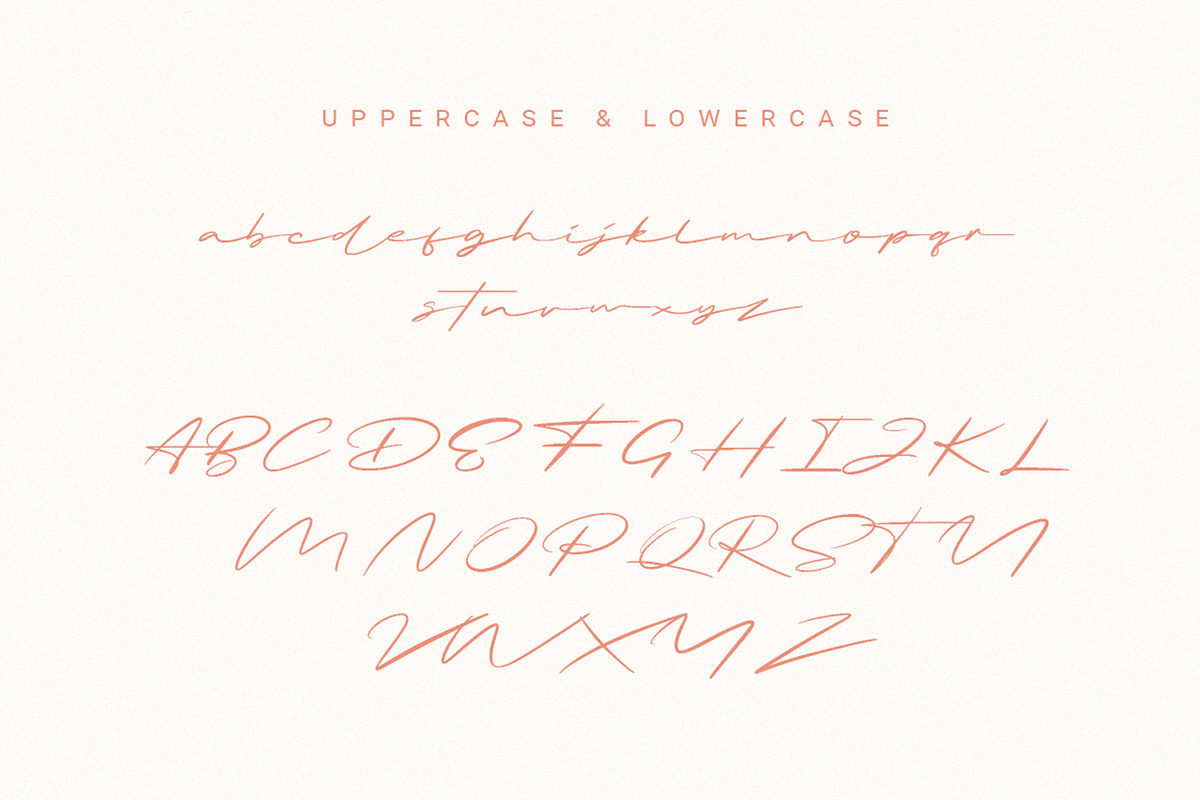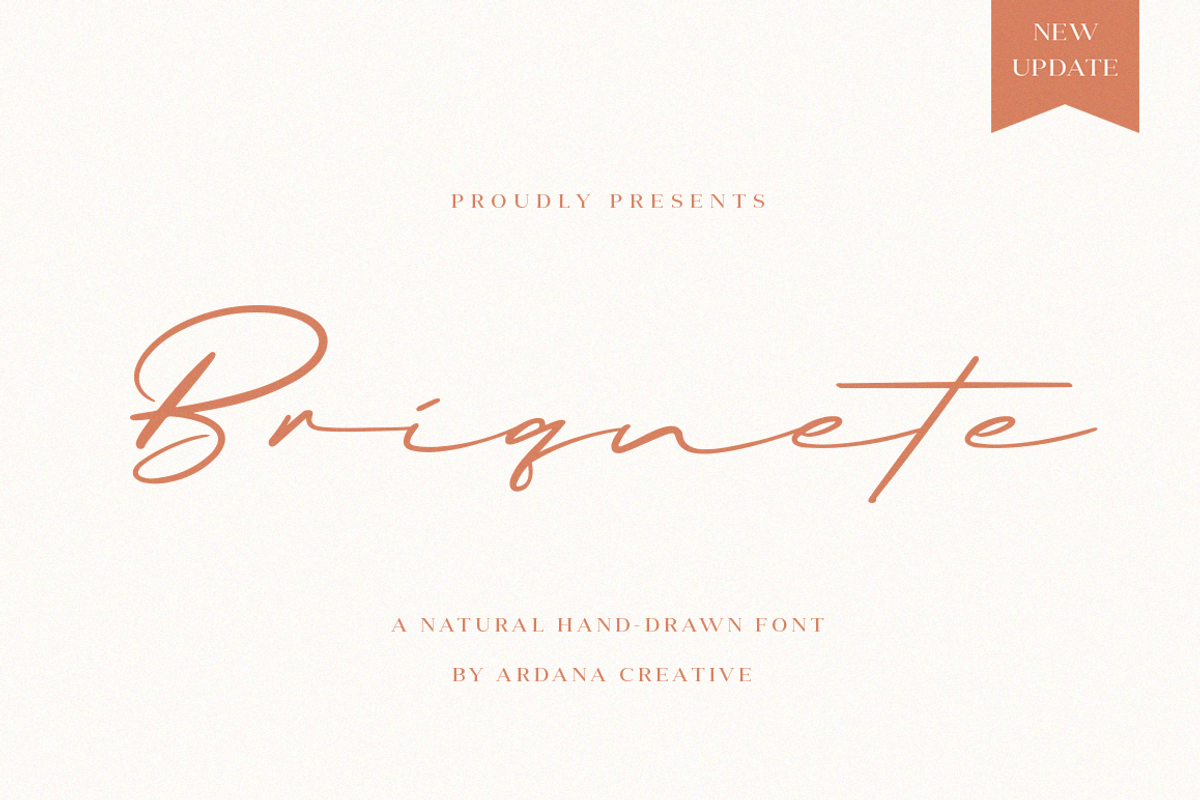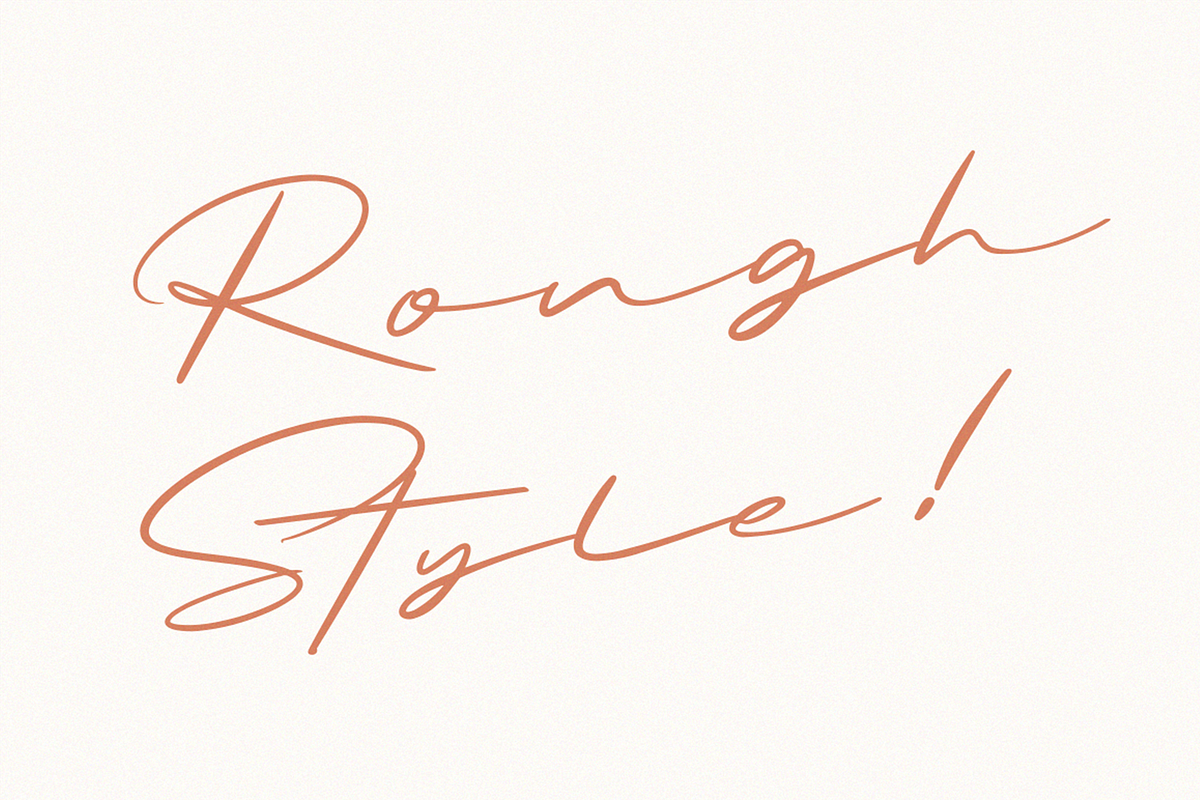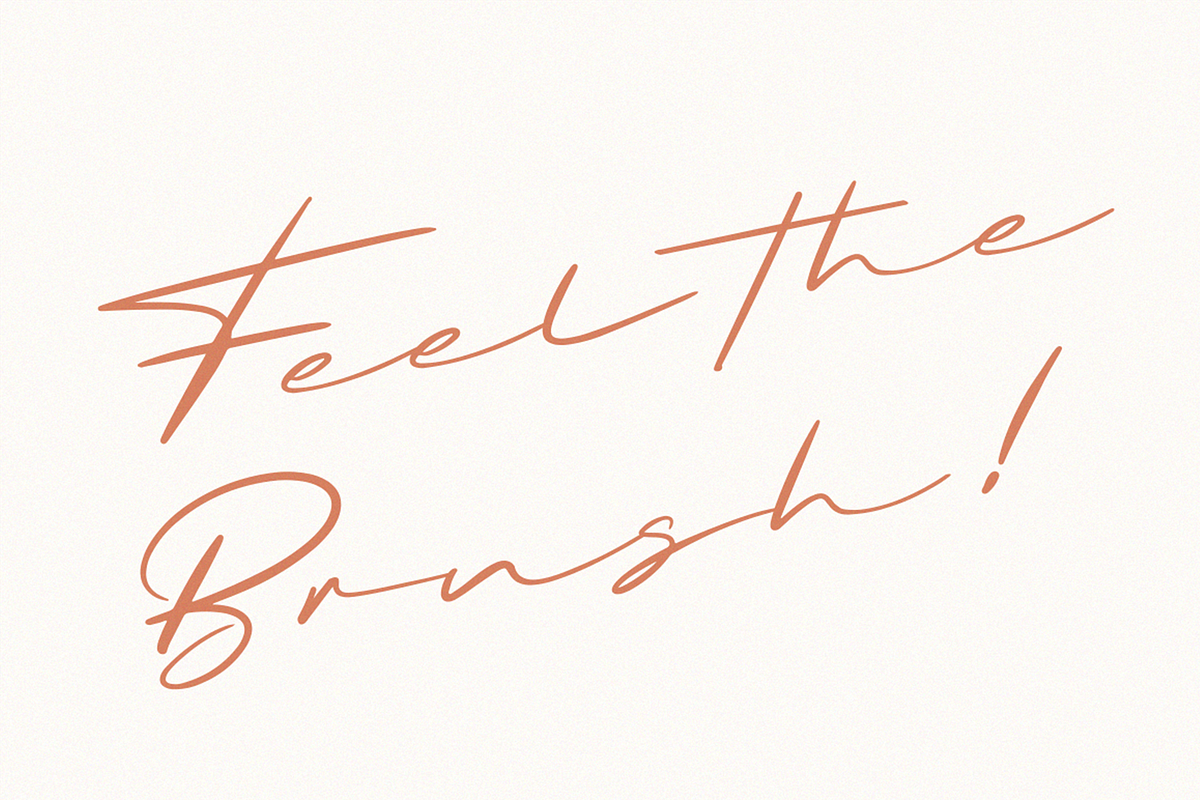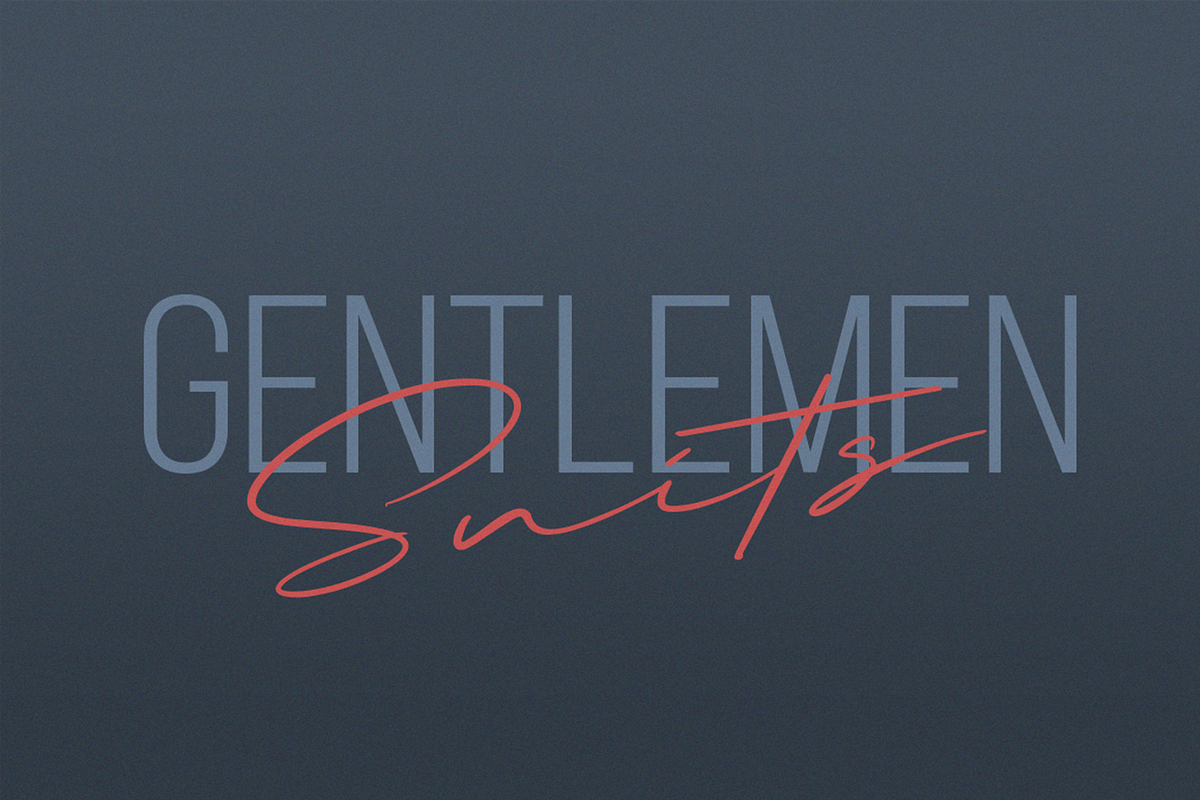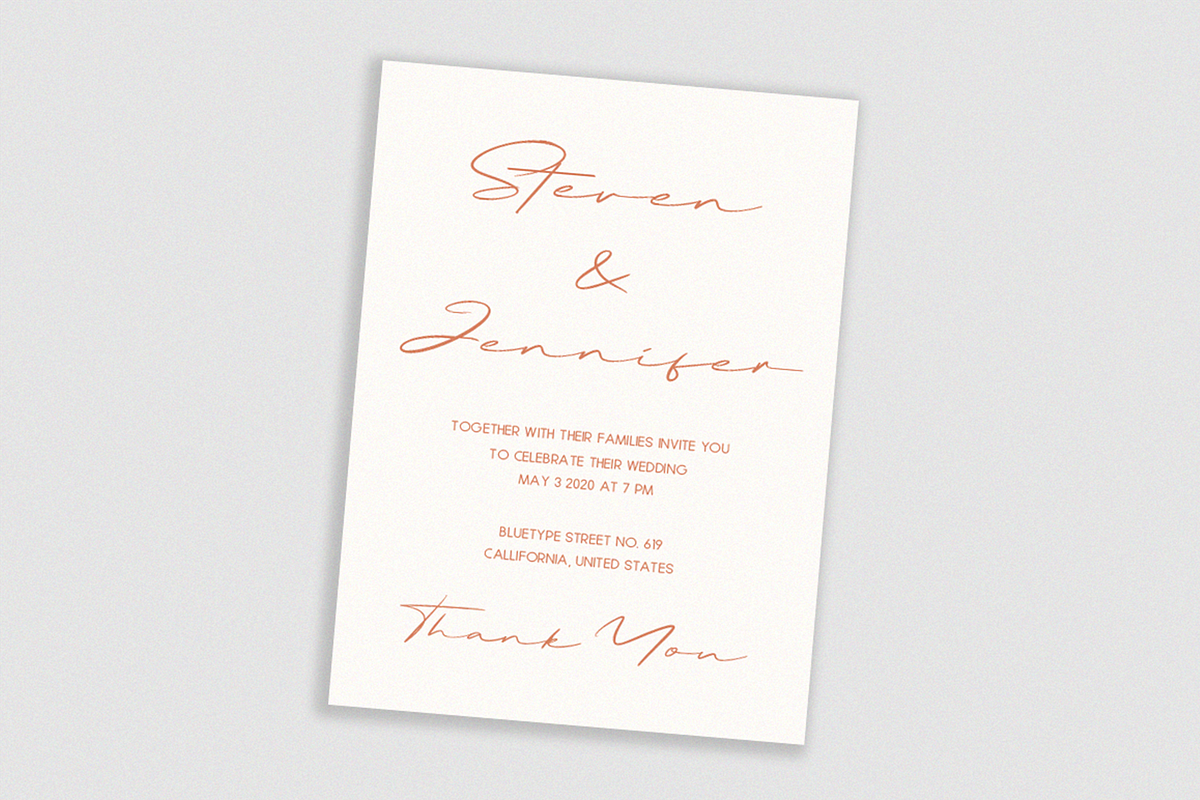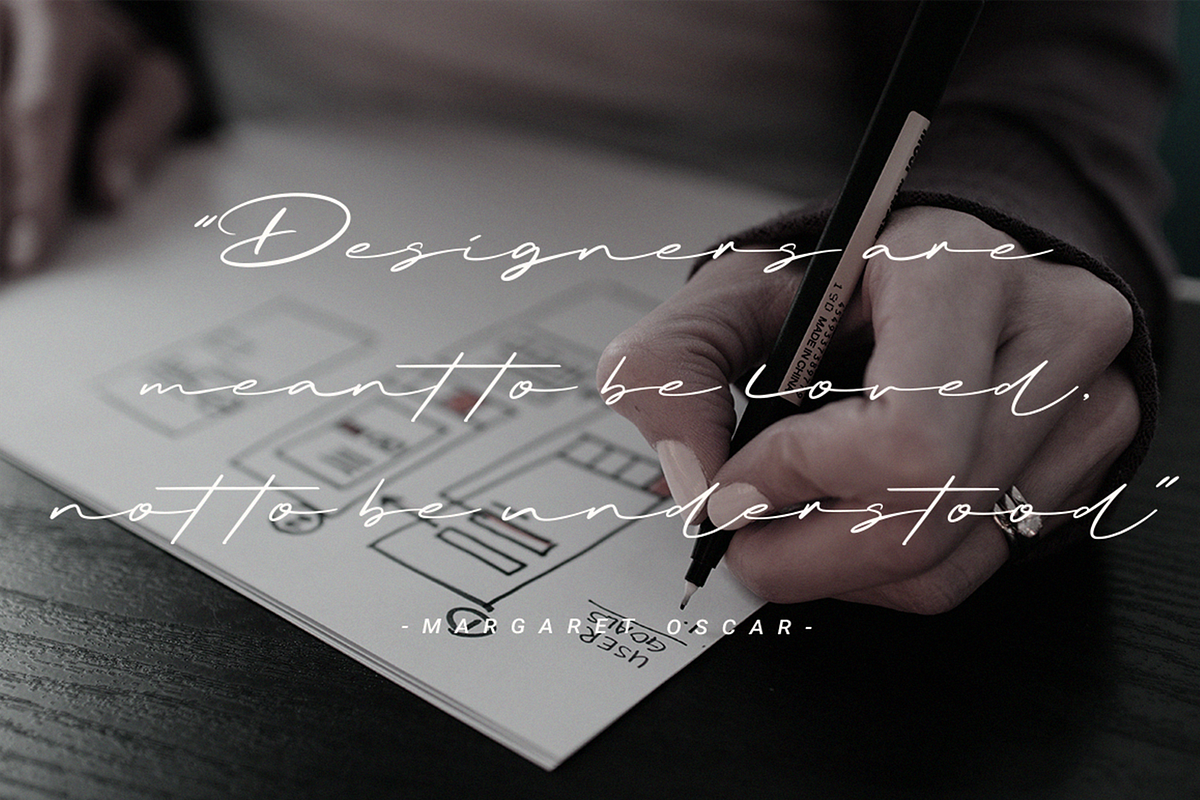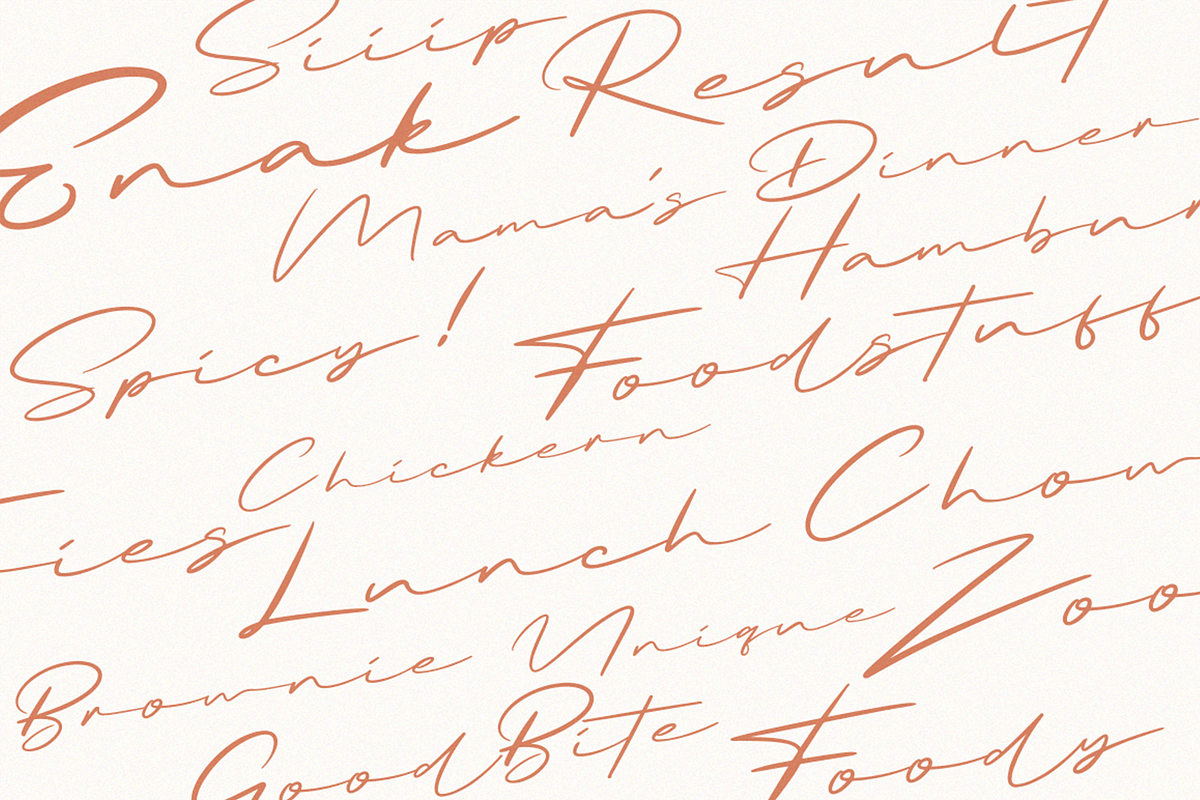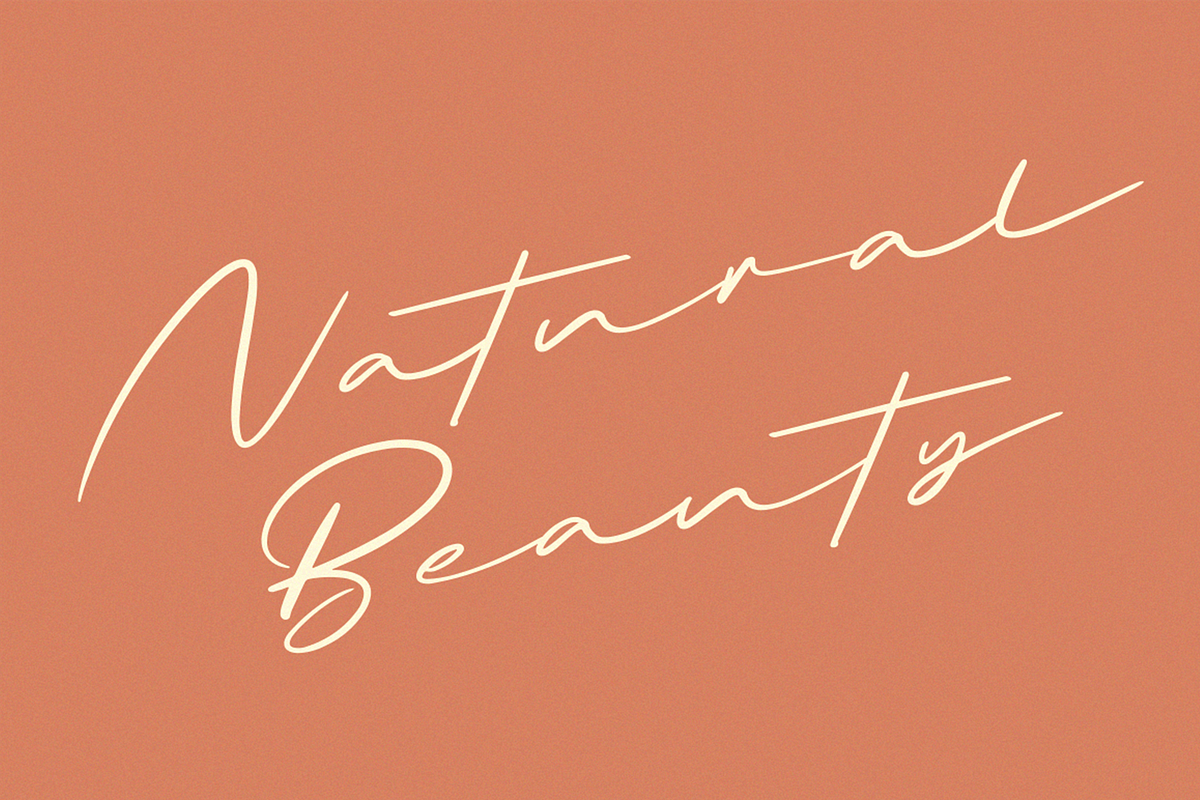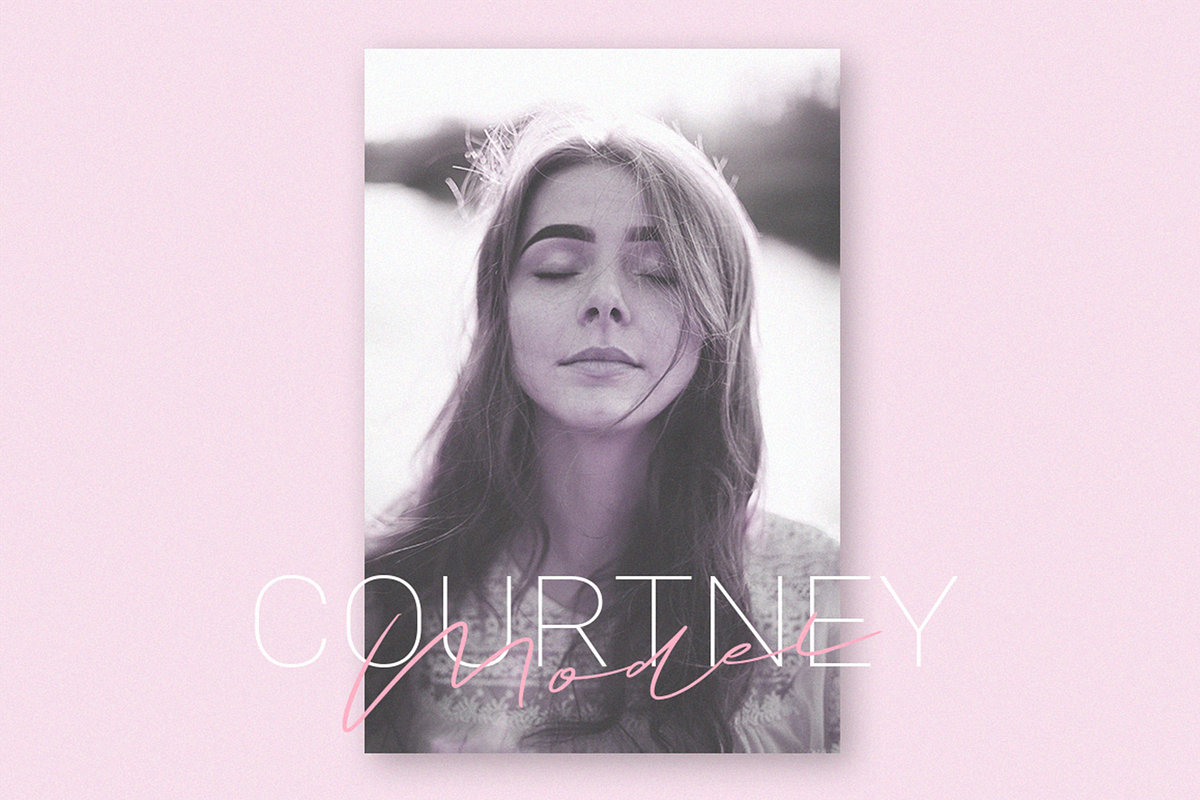
Briquete | Natural Brush Font
Briquete is natural handwritten script font manufactured by Ardana Creative, which supports OpenType features and includes numeral, punctuation, and it also supports multi-languages.
This typeface is very catchy and natural because it was made using a brush pen. This font is perfect for branding projects, wedding designs, advertisements, product packaging, product designs, label, photography, invitation, quotes, etc.
Briquete features:
A full set of upper & lowercase characters
Numbers & punctuations
Multilingual language support
PUA Encoded Characters